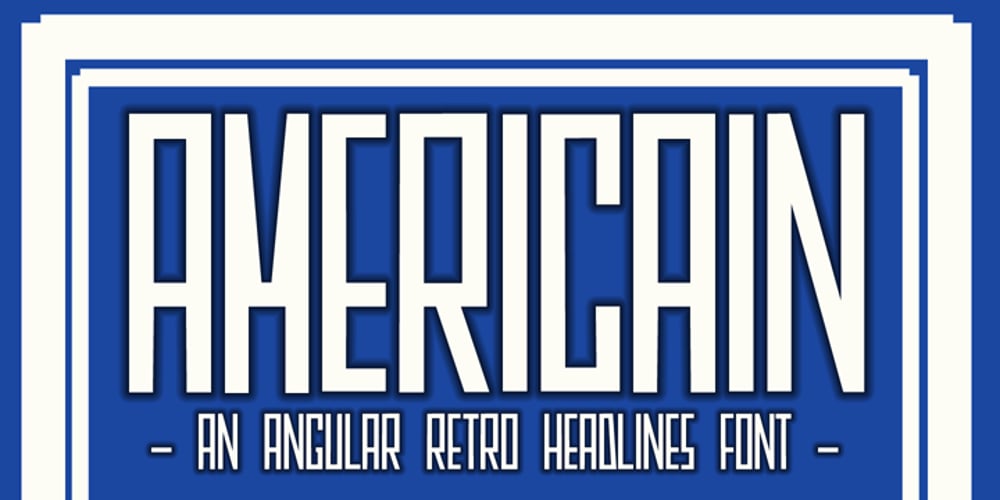
Americain Font Family was designed by David Kerkhoff and published by Hanoded. Americain contains 1 styles and family package options. Americain is a retro-style font, which was based on a single headline from a thirties advertisement. The letters are all caps, but there’s a little difference between ‘upper’ and ‘lower’ case. Americain is ideal for headlines and posters.